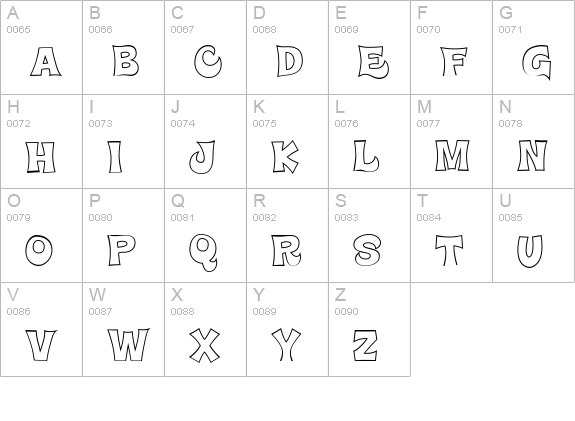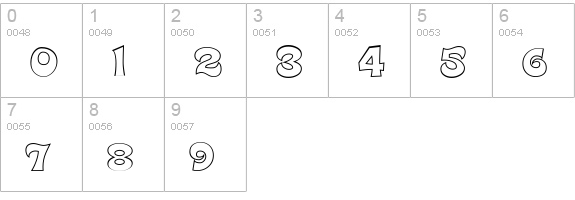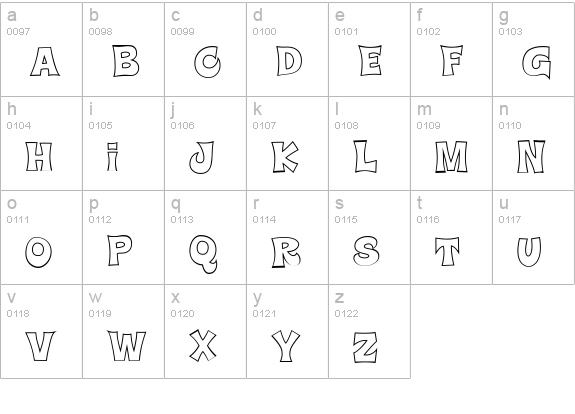
Super Delicious BTN Outline Font Details
Super Delicious BTN Outline font is a unique and eye-catching typeface that will add a touch of creativity to your design projects. With its bold outlines and modern aesthetic, this font is perfect for making a statement and standing out from the crowd. Whether you're working on branding, posters, or any other design project, Super Delicious BTN Outline font is sure to captivate your audience. The best part? This font is available for free download at FontsMarket.com, making it accessible to designers of all skill levels. Don't miss out on the opportunity to enhance your work with this stylish and versatile typeface. Download Super Delicious BTN Outline font today and take your designs to the next level!